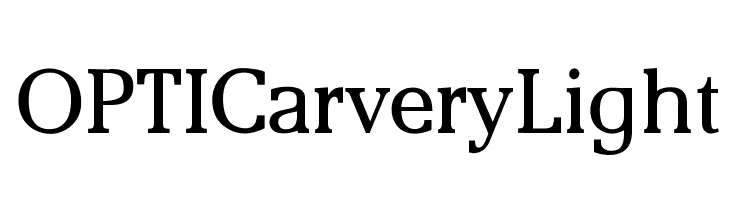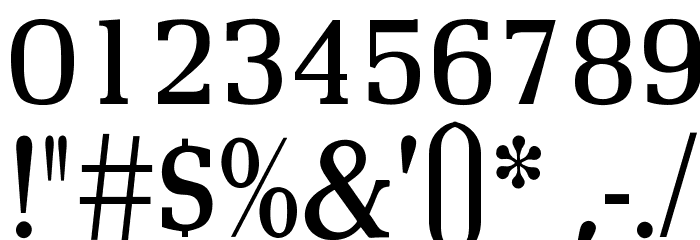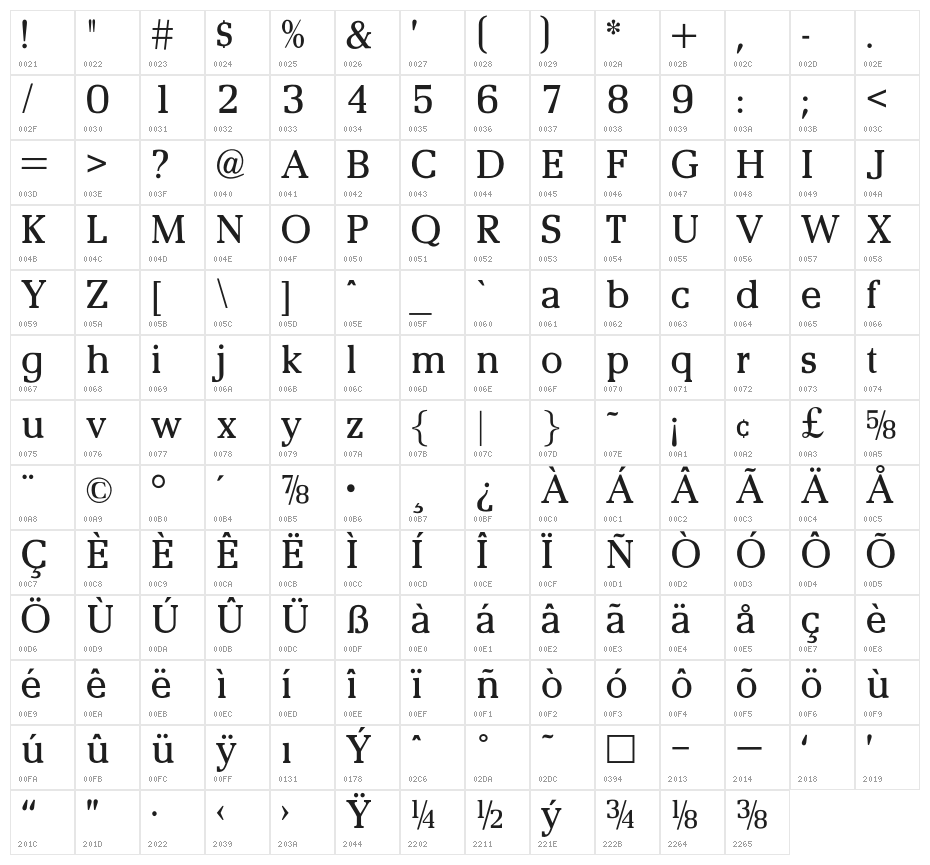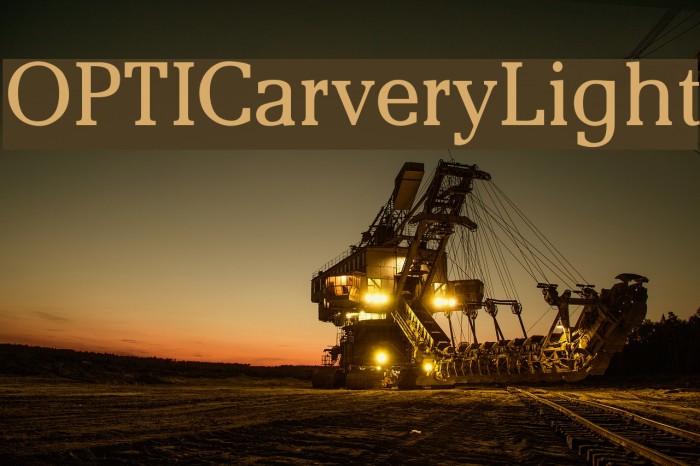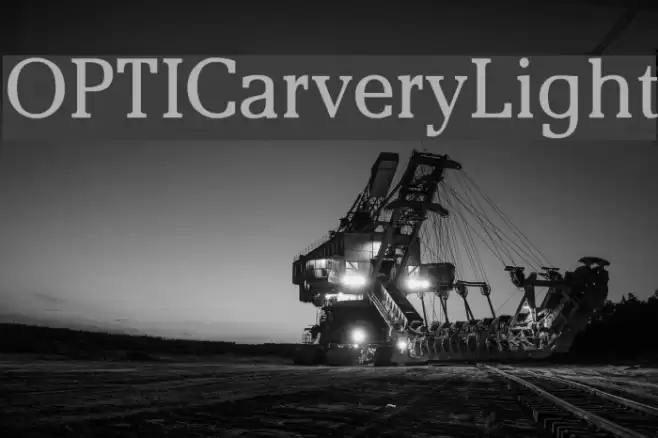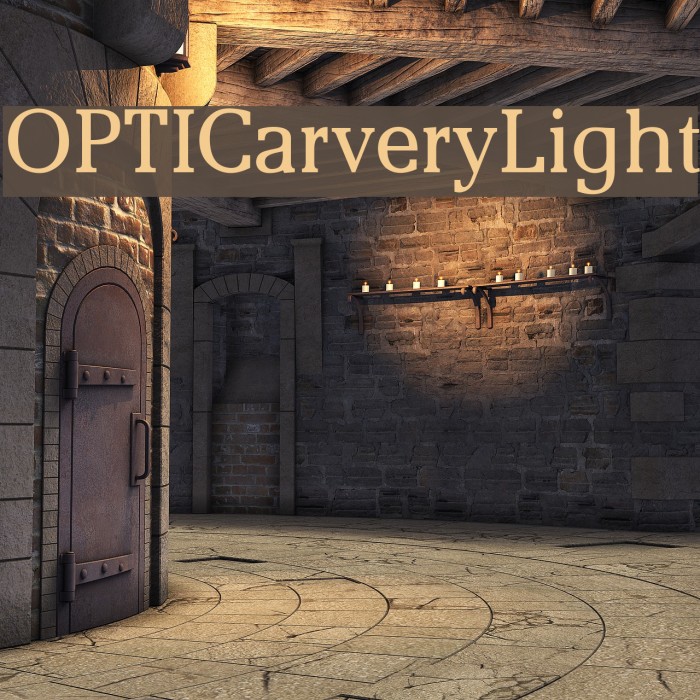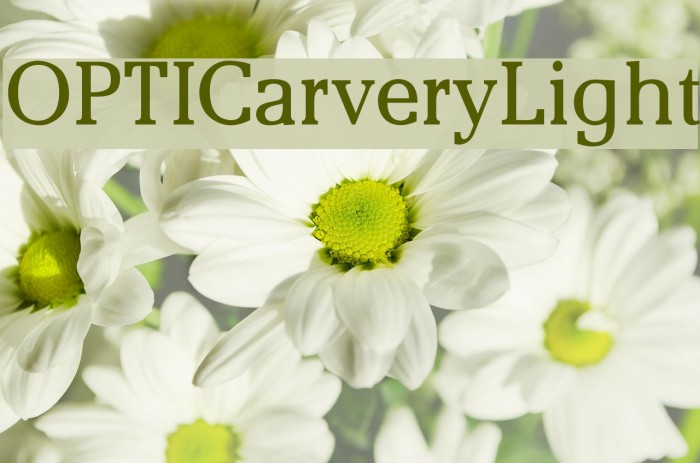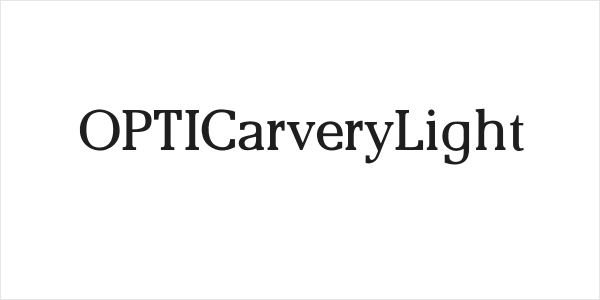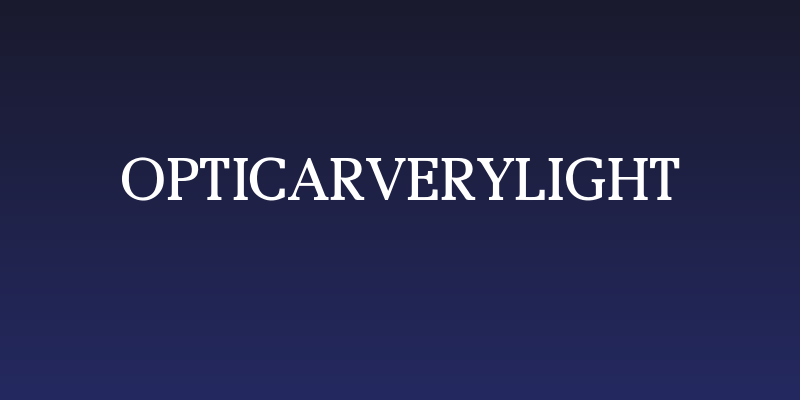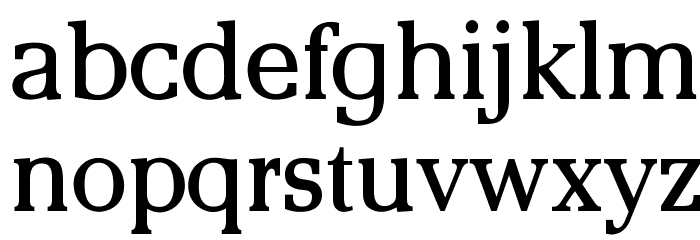
OPTICarveryLight Font
OPTICarveryLight Description
This font features a classic serif style with elegant and refined strokes. The uppercase letters are bold and commanding, while the lowercase letters maintain a balanced and harmonious appearance. The numerals are clear and easily readable, making them suitable for various applications. The special characters are well-integrated, maintaining the overall aesthetic of the font. The design is versatile, offering a timeless appeal that can be used in both modern and traditional contexts.
| Proposed Projects | Ideal for editorial design, book covers, formal invitations, and branding projects that require a touch of elegance. |